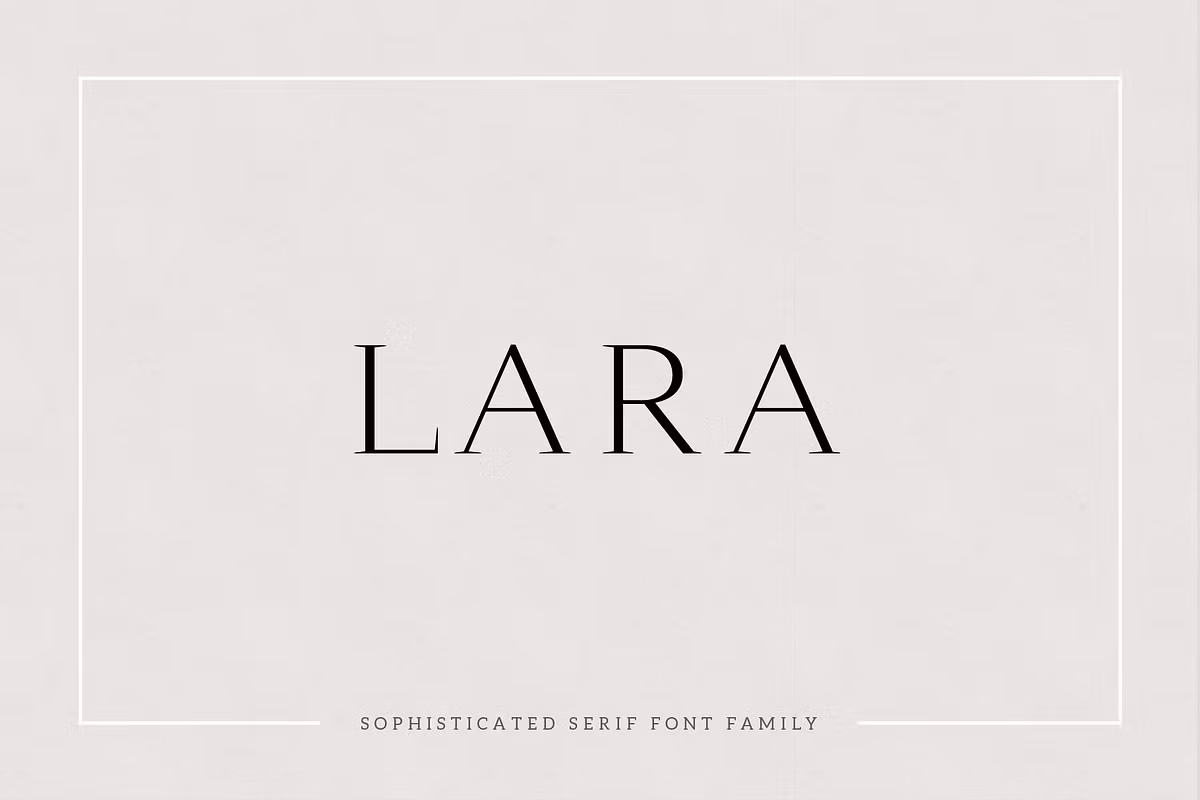
Elegant, timeless, and refined, Lara - Sophisticated Serif Typeface Free Download is a beautifully crafted serif font designed for high-end design projects. Perfect for branding, logos, editorial layouts, websites, and packaging, this font brings a touch of class and sophistication to your typography.
With its sharp serifs, delicate curves, and balanced proportions, Lara offers both readability and elegance, making it suitable for both display and body text. Whether you're working on a luxury brand, an upscale website, or an editorial publication, this font will add a professional and stylish touch to your designs.